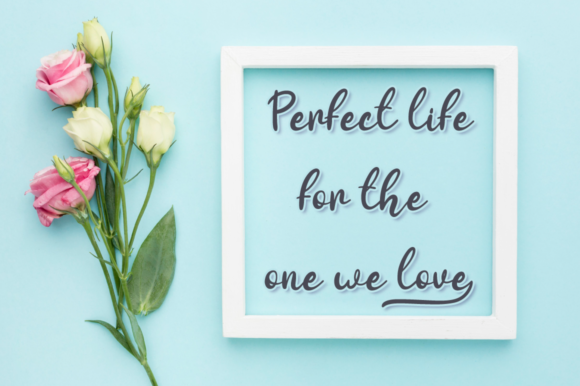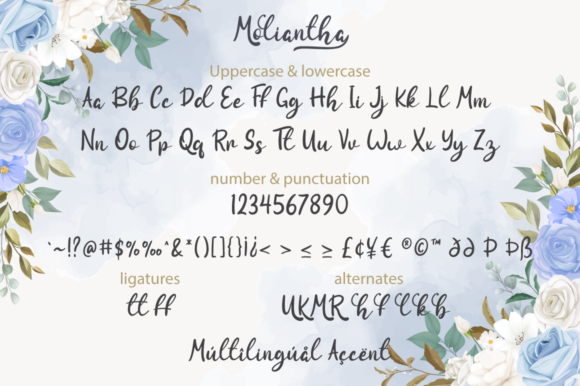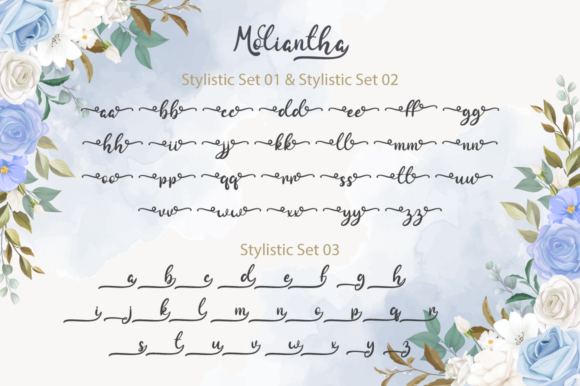
Introduction to Moliantha Font
Have you ever found yourself staring at a blank page, pencil in hand, trying to bring your creative vision to life? The blank slate can be intimidating, but the right design tool can make all the difference. For designers and artists seeking a high-quality, versatile font, the search is over – enter the enchanting Moliantha Font.
With its delicate and intricate script, the Moliantha Font is a treasure trove for creative projects. Whether you’re crafting romantic wedding invitations or designing a free downloadable e-book, this font is sure to add a touch of elegance and sophistication. As a valuable design resource, the Moliantha Font is a must-have for any creative professional. Its transparent background and three stylistic sets make it an ideal choice for a wide range of design applications.
Key Features of Moliantha Font
- High-quality design for creative projects: Moliantha Font is perfect for designers and artists looking for a unique and elegant font to enhance their designs.
- Transparent background: The font’s transparent background allows for easy customization and layering, making it ideal for graphic designers and digital artists.
- Unique characteristics: The font features a distinctive and intricate design, with a mix of modern and traditional elements that make it stand out from other fonts.
Honest Review: Moliantha Font
I recently stumbled upon the Moliantha Font while searching for a unique design resource to enhance my creative project. The initial impression was that it’s a high-quality font with a touch of elegance.
Here’s what works well:
- ✨ The font is perfect for those looking for a sophisticated and stylish look. Its clean lines and curved shapes make it ideal for headings and titles.
- ✨ The transparent background makes it easy to integrate into various design projects without any hassle.
- ⚠️ The font might not be suitable for projects that require a more playful or casual tone, as it’s more geared towards formal and professional designs.
- ⚠️ Some users might find the font a bit too simplistic, which could limit its use in projects requiring a lot of depth and complexity.
Overall, I’m impressed with the Moliantha Font’s versatility and ease of use. While it may not be the perfect fit for every design project, it’s definitely a valuable addition to any designer’s toolkit.
Tips for Getting the Most Out of Moliantha Font
Experiment with different font sizes and styles to create visual interest. Use the Moliantha Font in combination with other design elements, such as graphics and images, to create a unique and eye-catching design. Take advantage of the transparent background feature to create custom graphics and illustrations that stand out from the crowd.
Common Use Cases for Moliantha Font
The Moliantha Font is perfect for a variety of design projects, including wedding invitations, business cards, and social media graphics. Its elegant and sophisticated design makes it ideal for creative projects that require a high-quality design resource. You can also use the Moliantha Font to create custom graphics and illustrations with a transparent background, perfect for free download and use in your design projects.